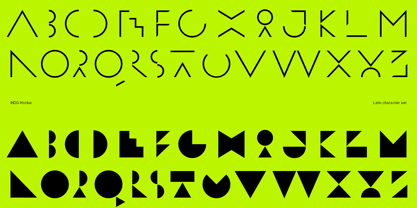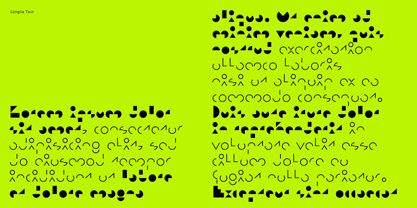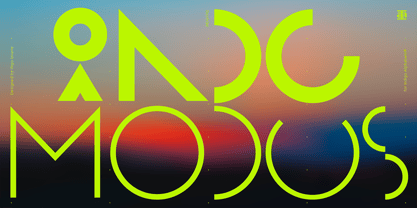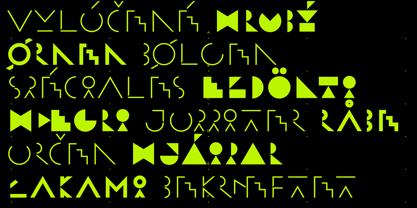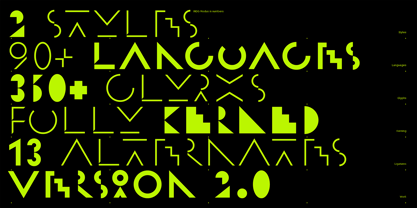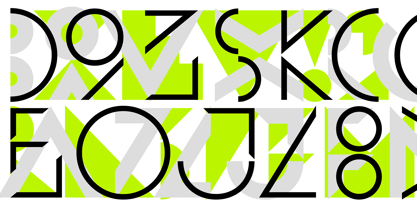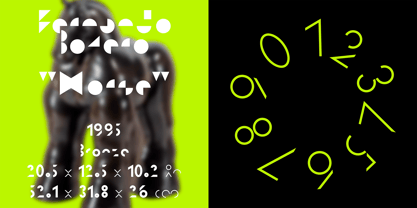
INDG Modus
by Iñigo Uriarte
The INDG Modus Font Family was designed by Iñigo Uriarte and published by Iñigo Uriarte. INDG Modus contains 3 styles and family package options.
Define geometric.
Sometimes, one must leave legibility behind to embark on journeys that broaden horizons. Extreme geometric simplification is what best defines INDG Modus.
Perfect for expressionist, artsy applications; not recommended for text bodies.
About Iñigo Uriarte
Indigo Alphabets™ is an independent type foundry run by Berlin-based designer Iñigo Uriarte. This project aspires to fill a gap in the typographic panorama, as well as to be a platform for the designer's explorative impulse. With a focus on futuristic, blackletter and bitmap typefaces, Indigo Alphabets™ is committed to the highest standard for quality in its work.Happy designing